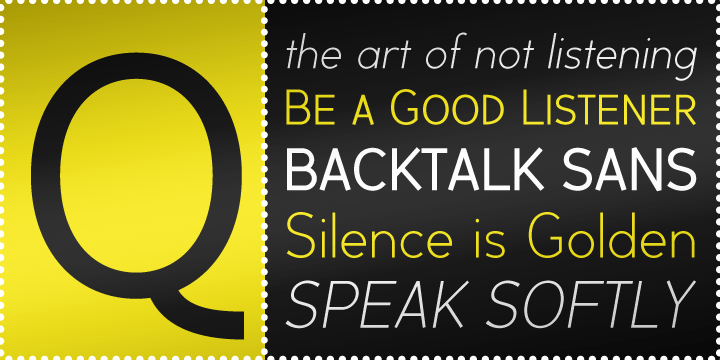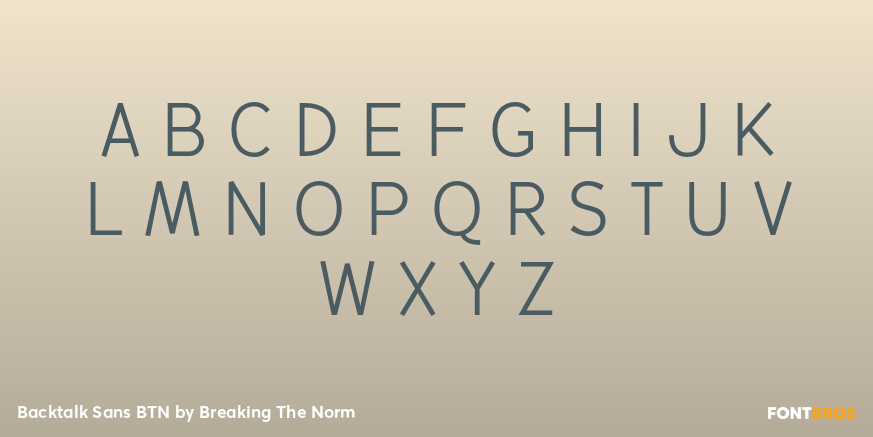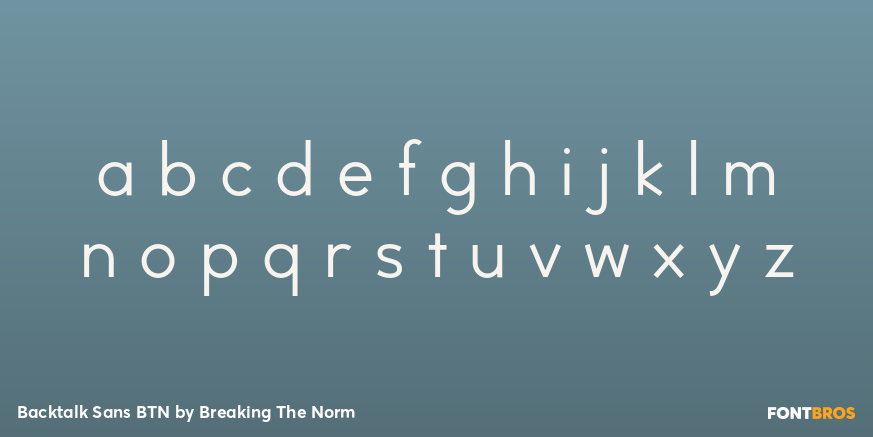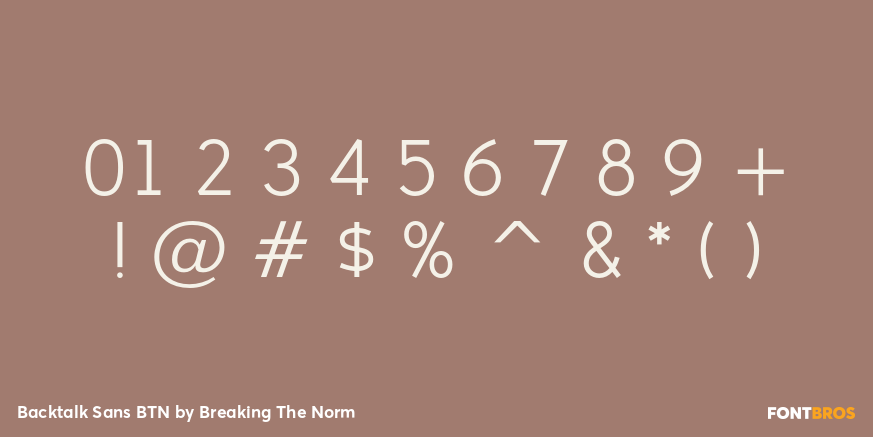
Backtalk Sans BTN
Font Family by Breaking The Norm
Backtalk Sans BTN is a clean geometric sans serif family built around clarity, simplicity, and everyday legibility. Drawing from both humanist and geometric influences, it balances straightforward construction with a subtle touch of personality, giving it a versatile voice that feels honest, modern, and approachable. Backtalk Sans BTN works well across branding, editorial design, advertising, packaging, web graphics, signage, and contemporary business communication. With a range of upright and oblique styles, plus Short Cap companion styles, the family offers flexible options for creating polished layouts with a crisp, understated character.